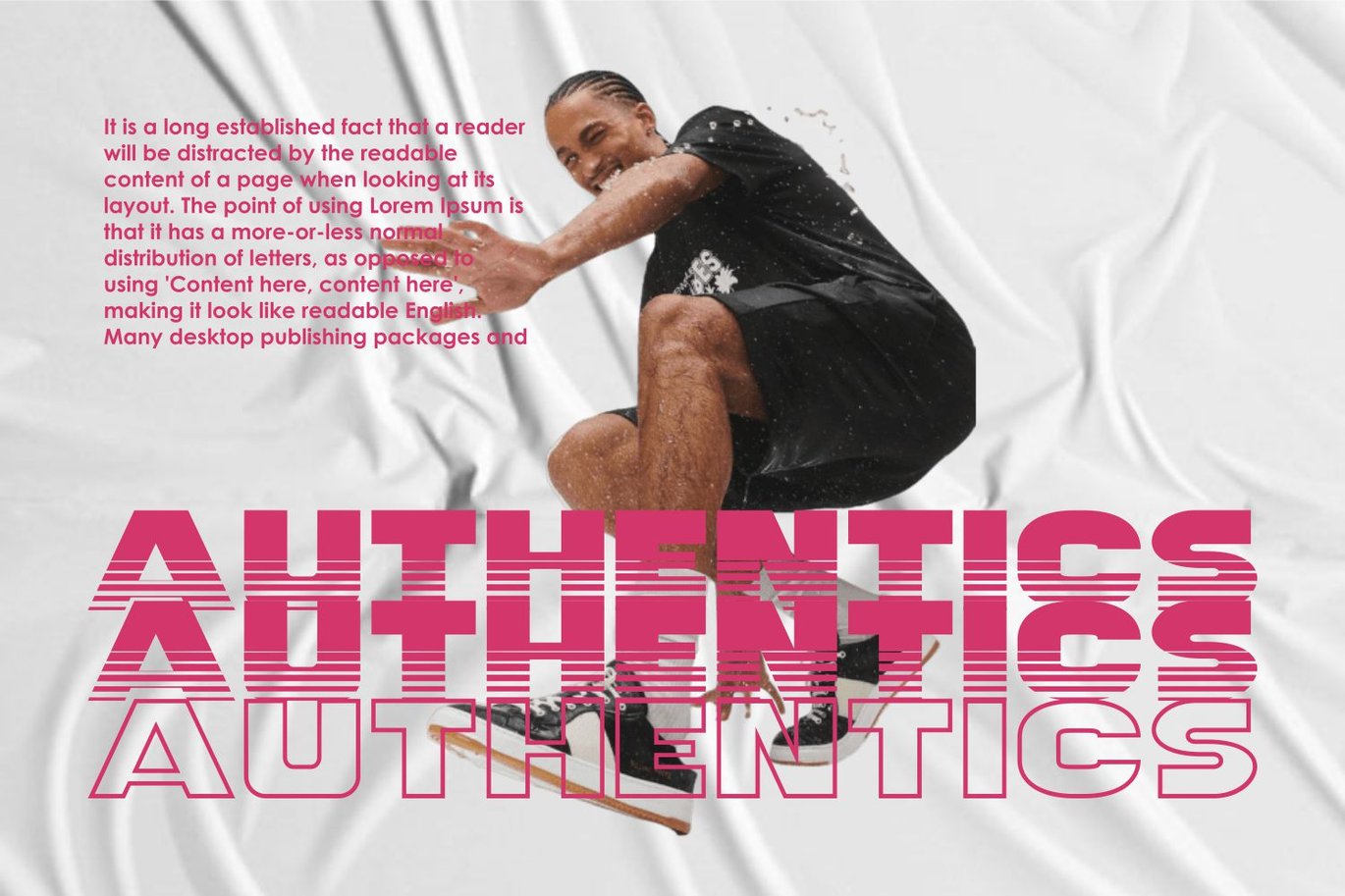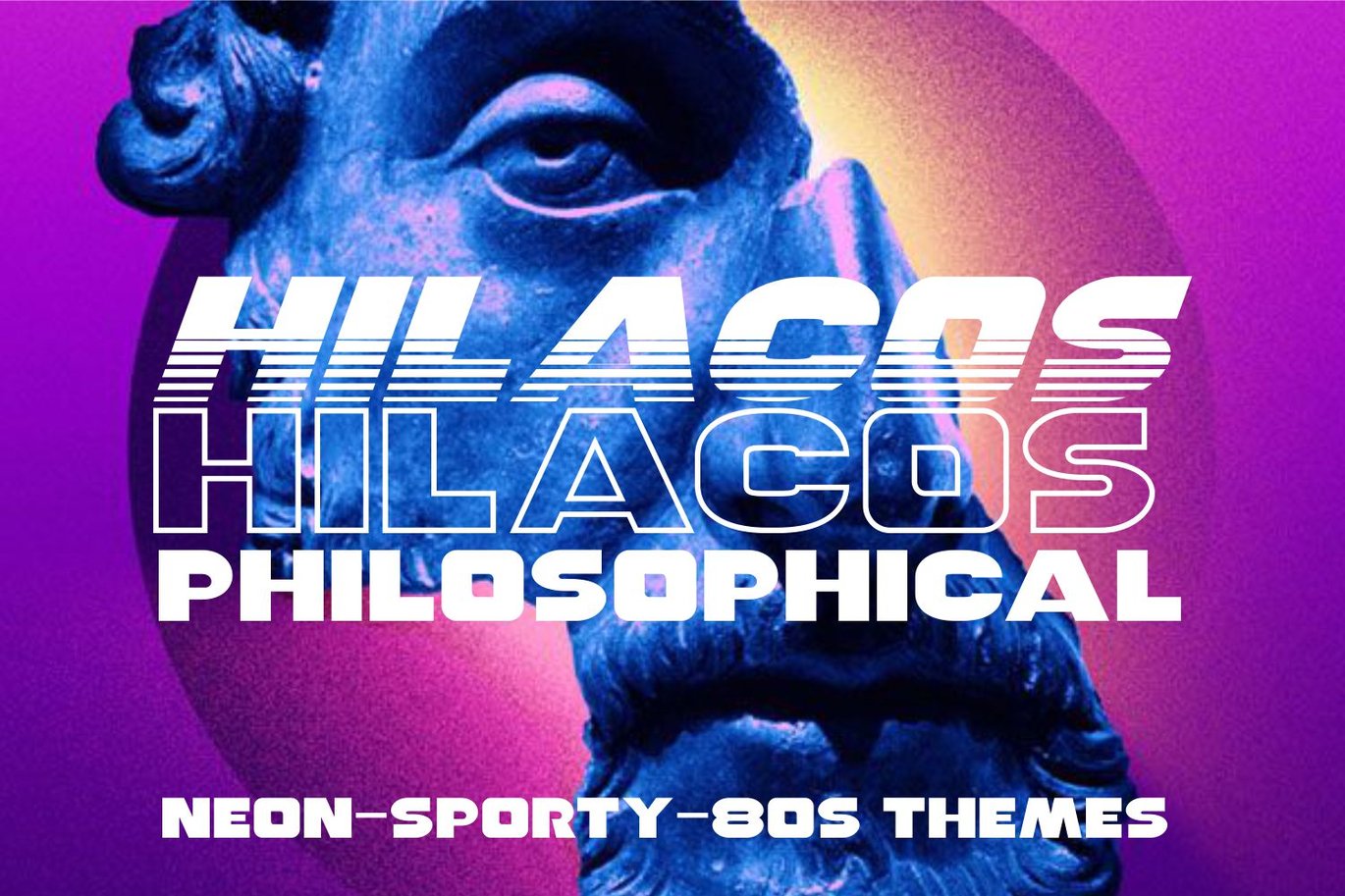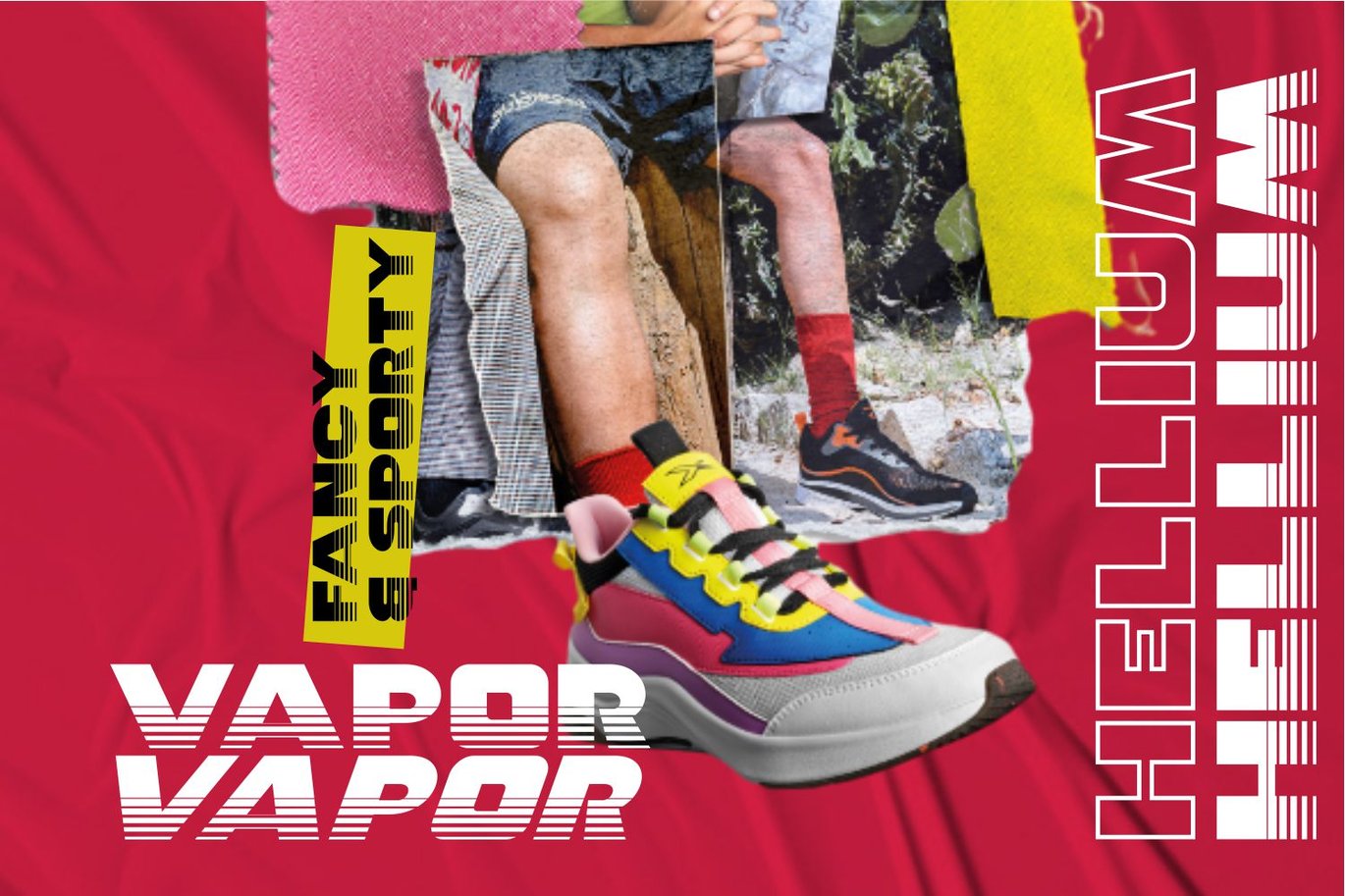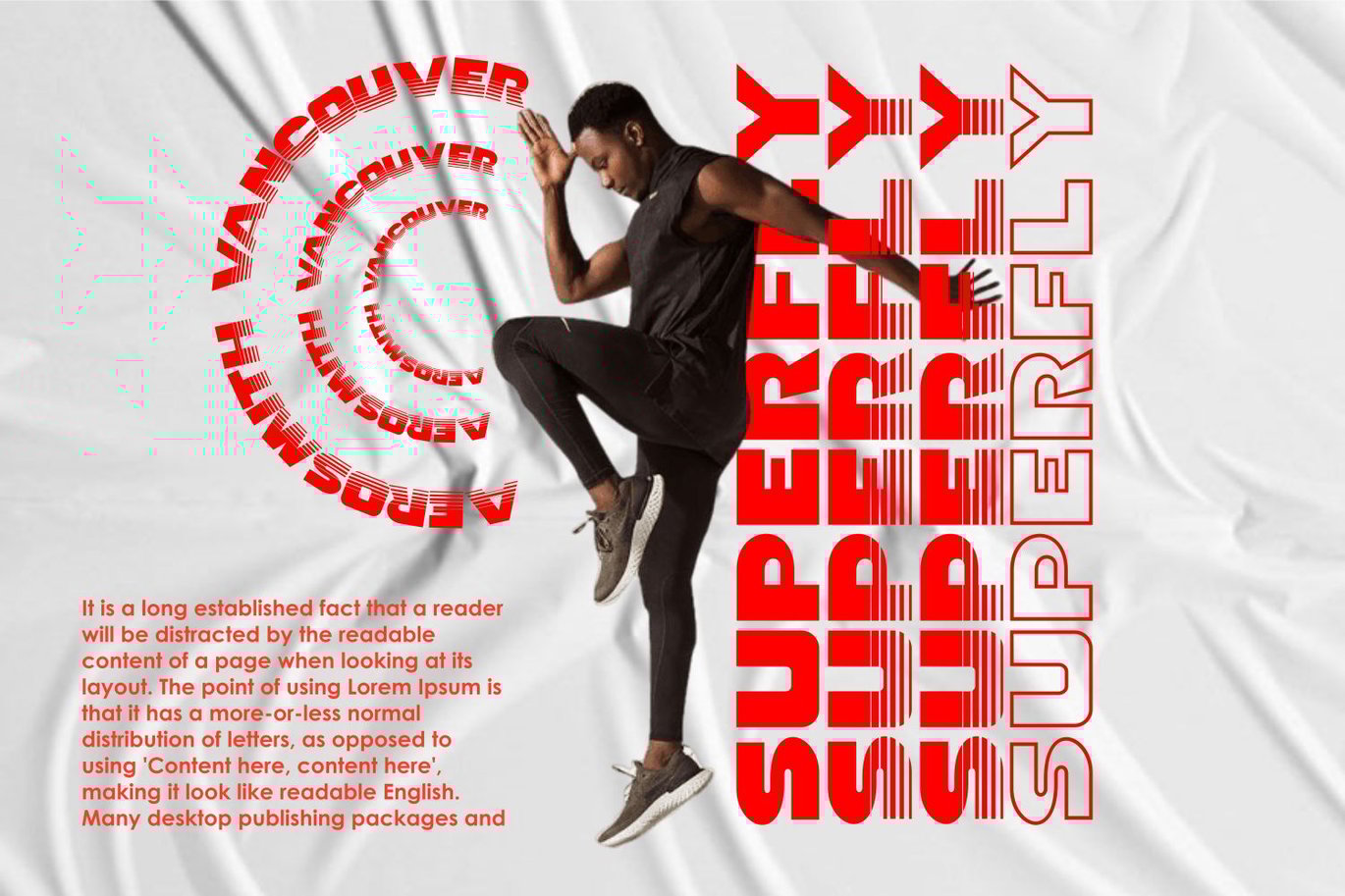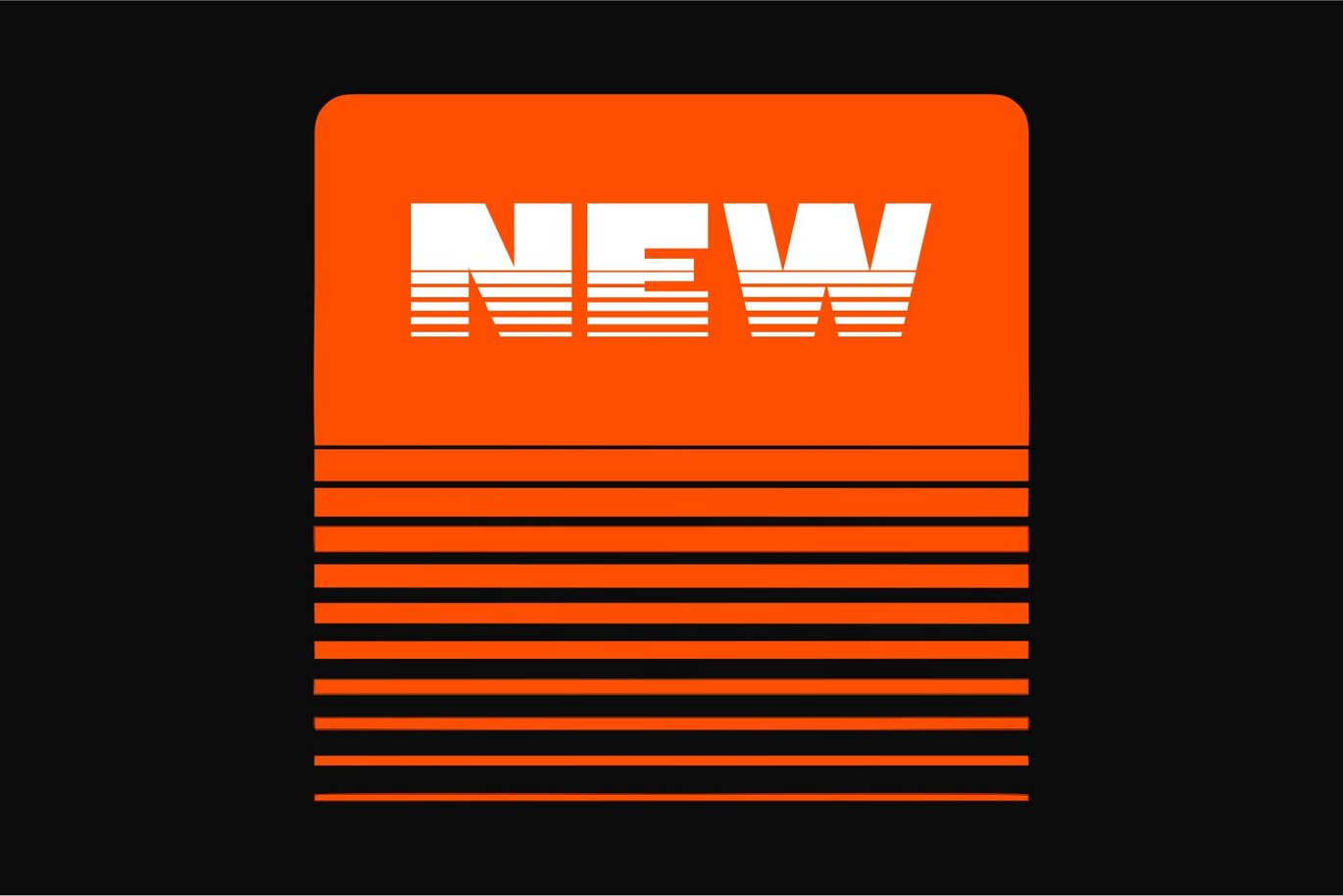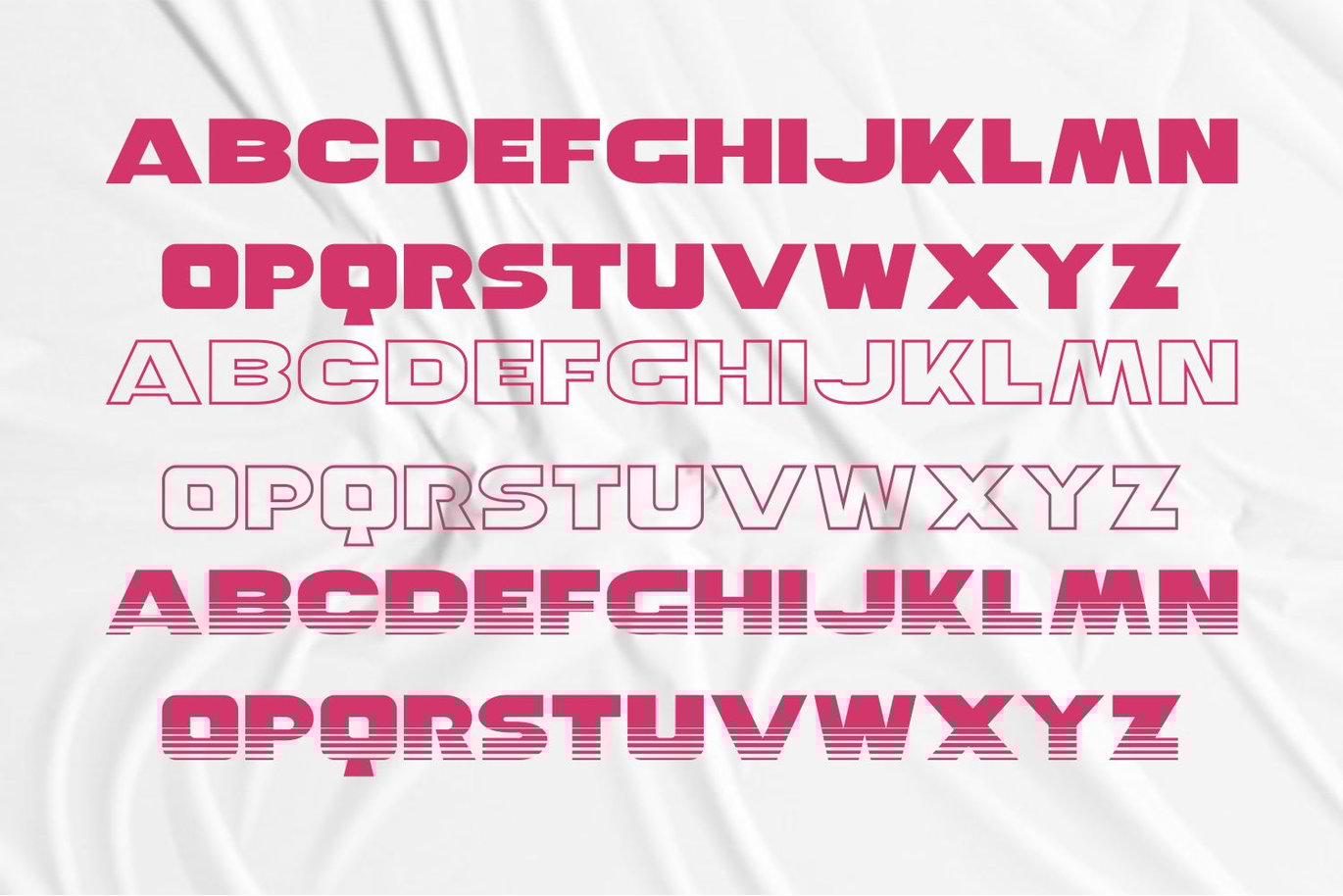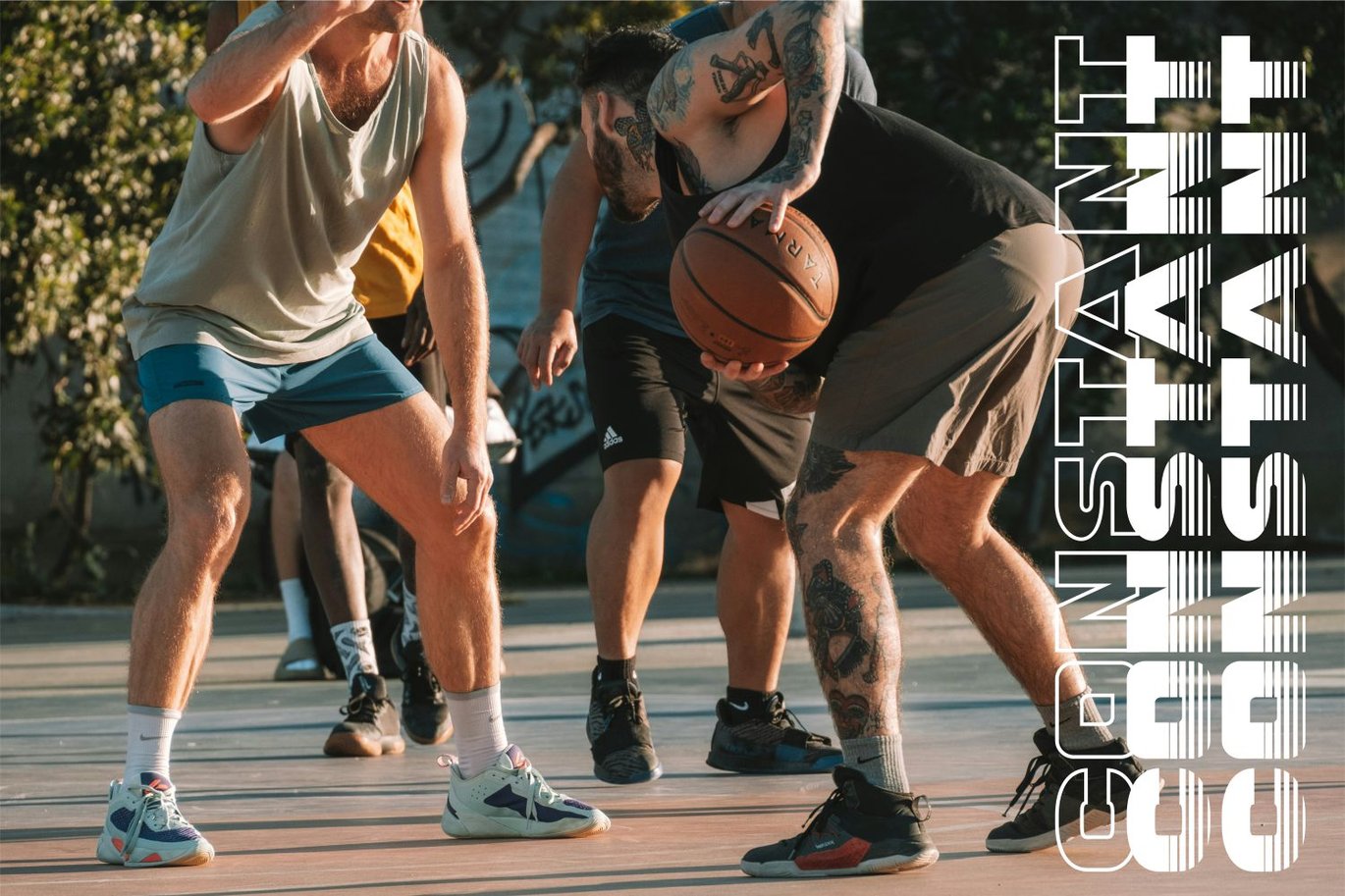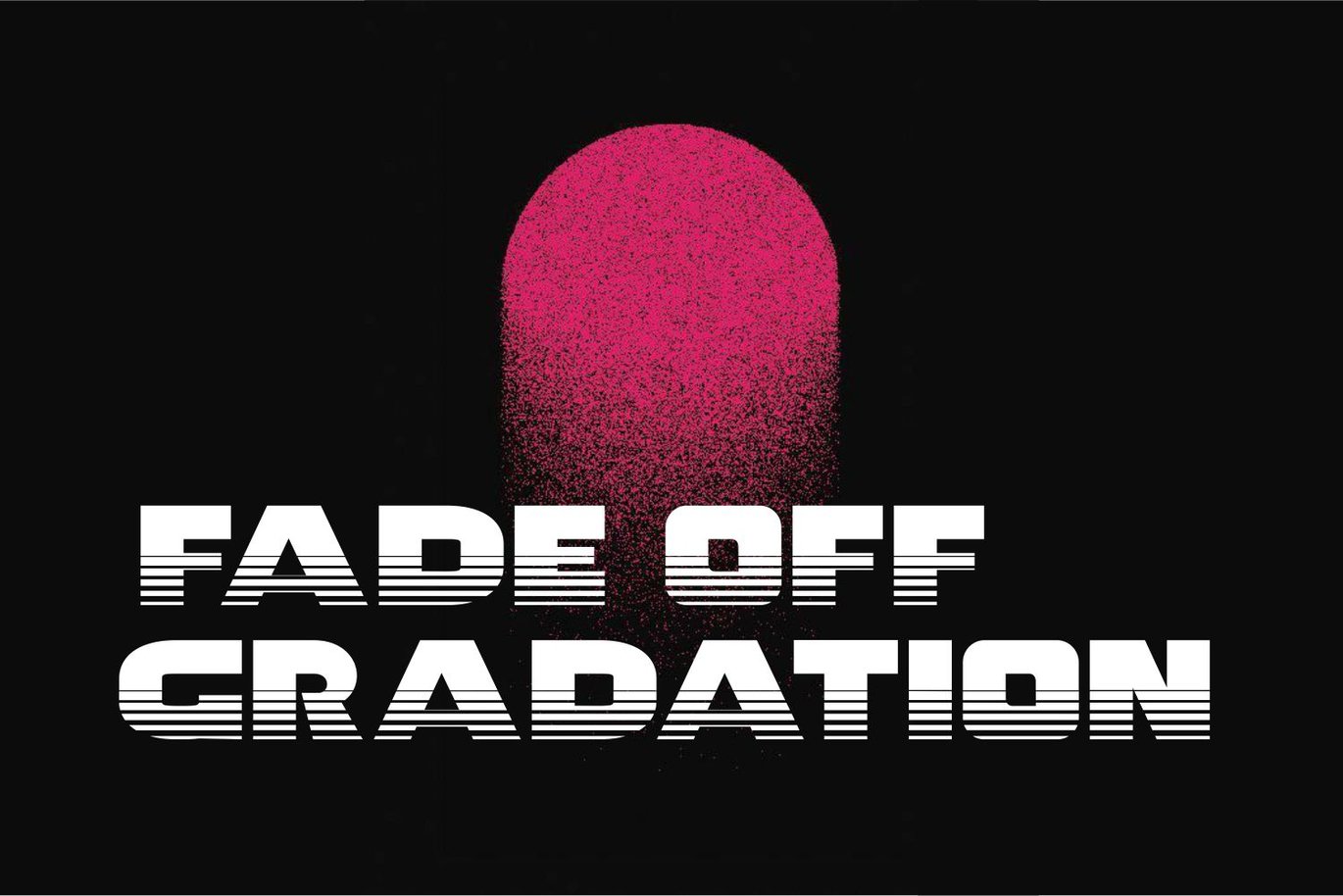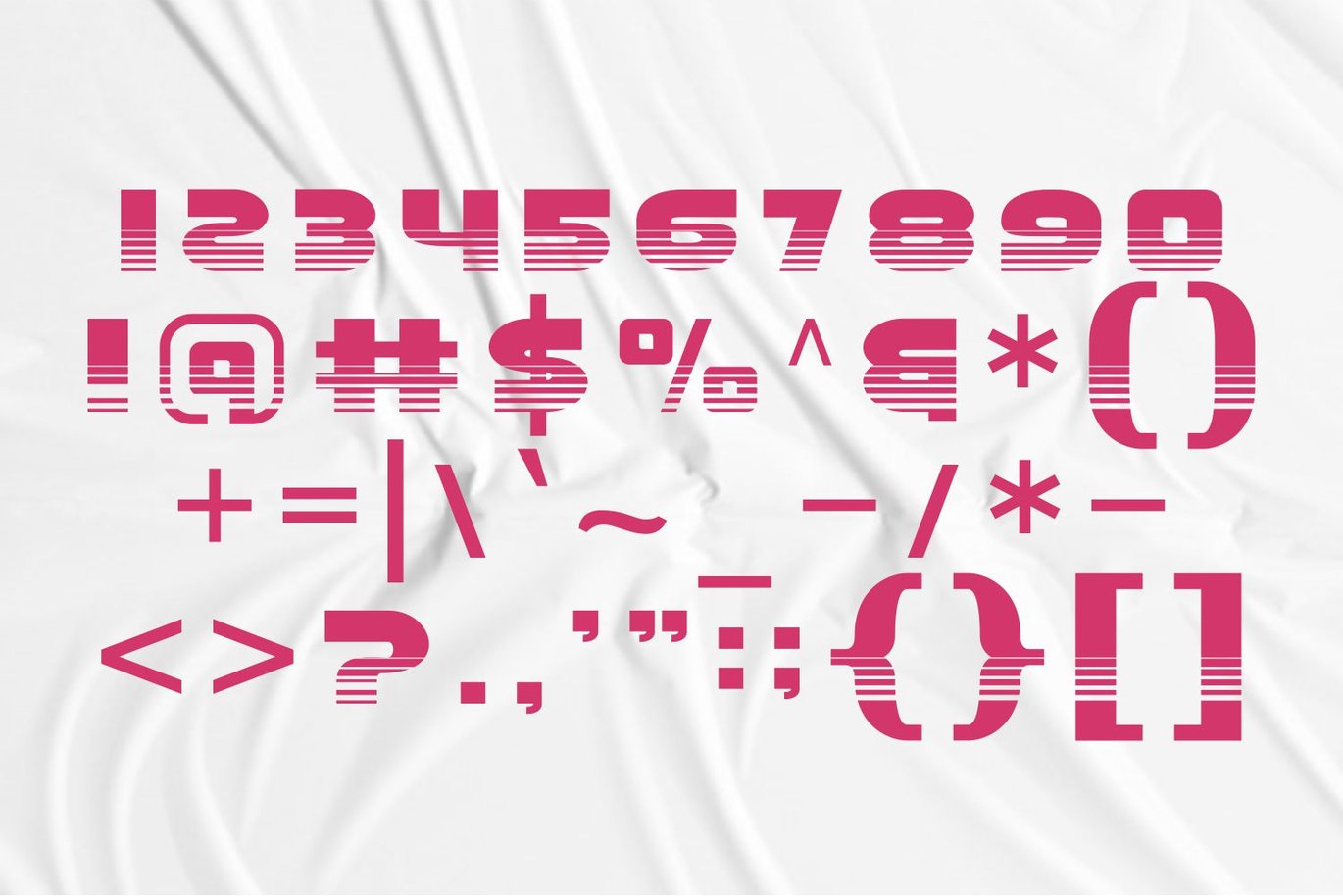
Sportify | Sports font
Spotify fonts are inspired by athleticism combined with retro, Neon, 80s and semi modern cyberpunk elements.
The thickness of the font can also be an indication that this font is very useful for displaying sports products, as shown in the thumbnail preview on the side.
there is one type of font gradation that we deliberately made to give it a more sporty impression.